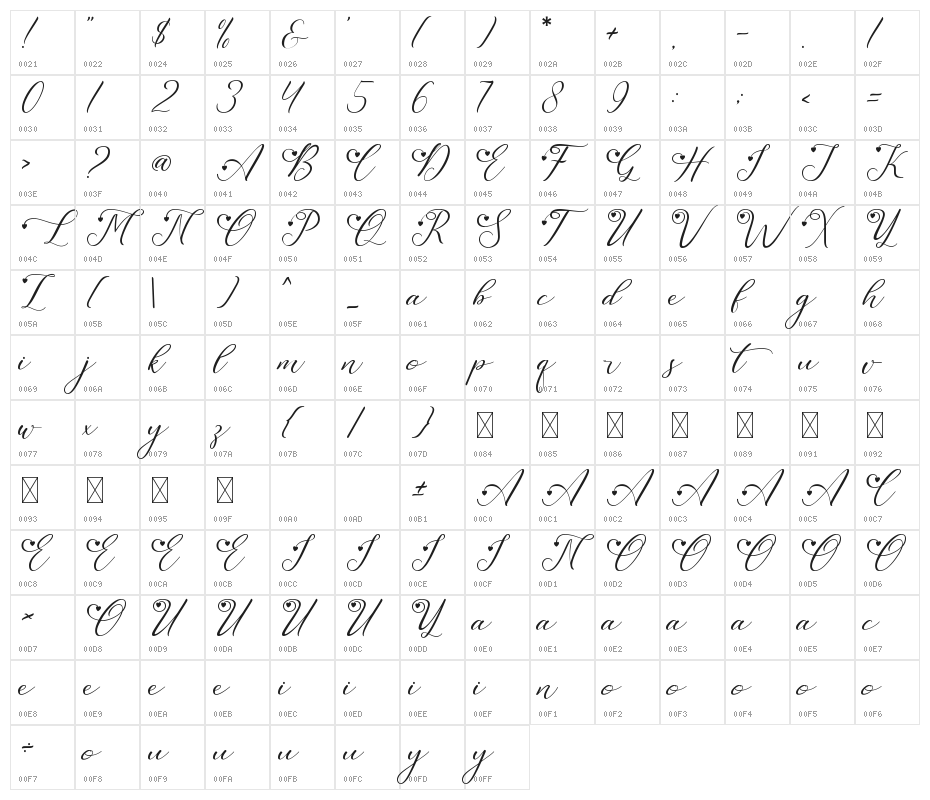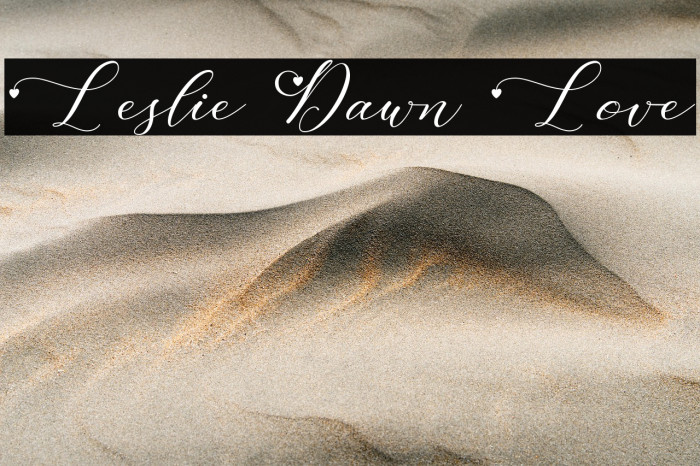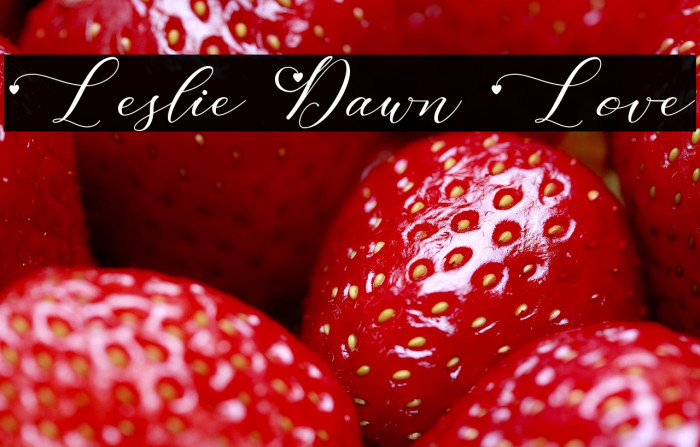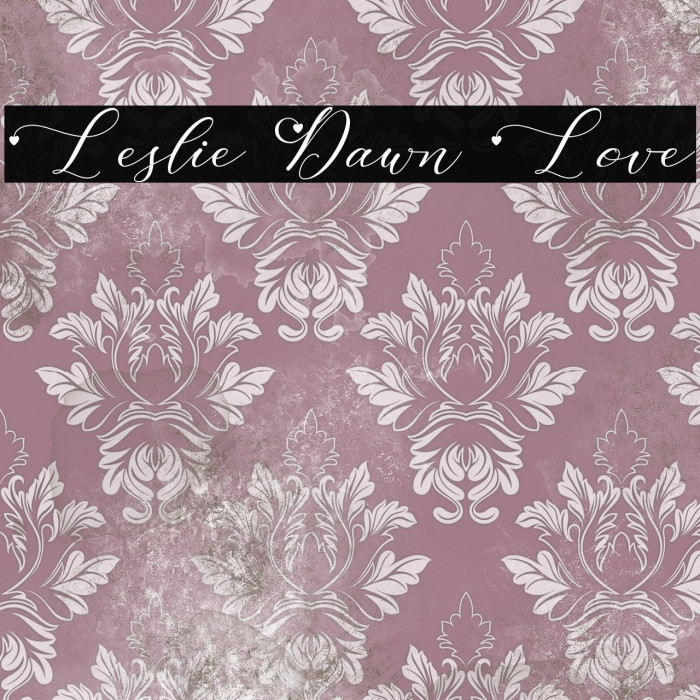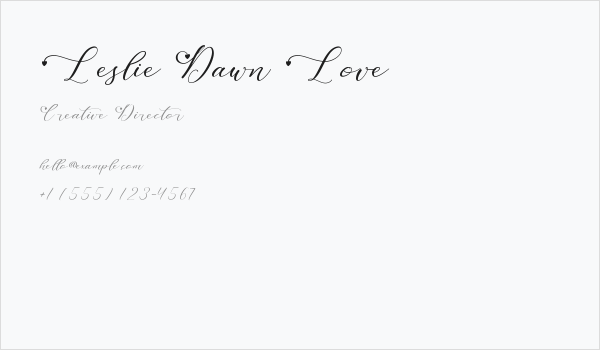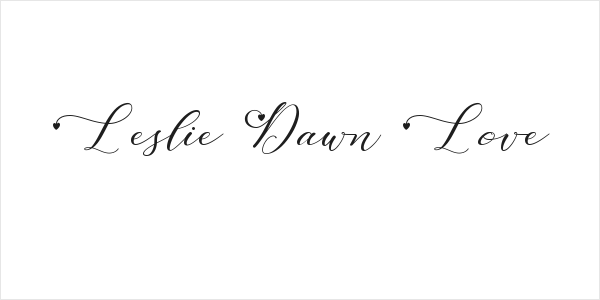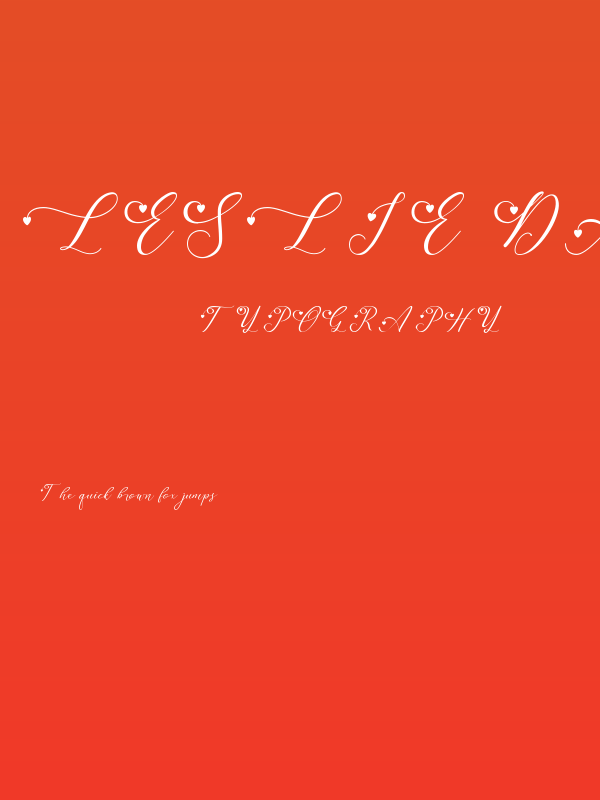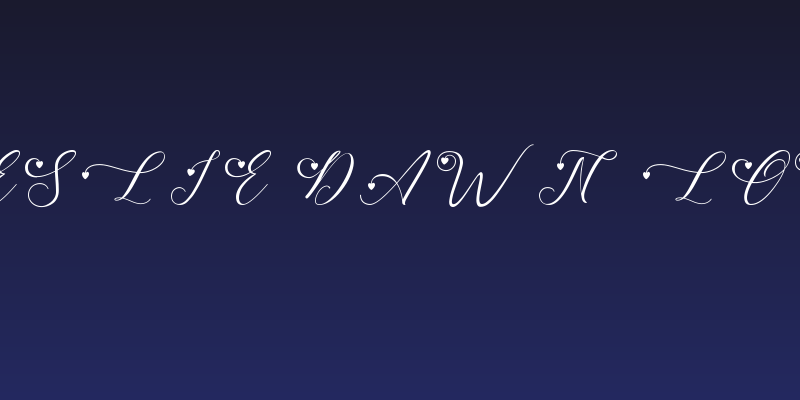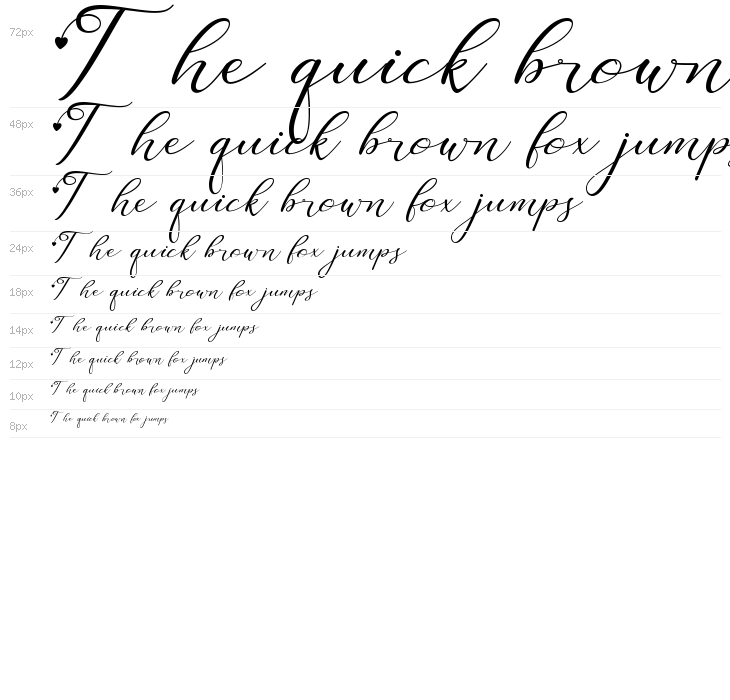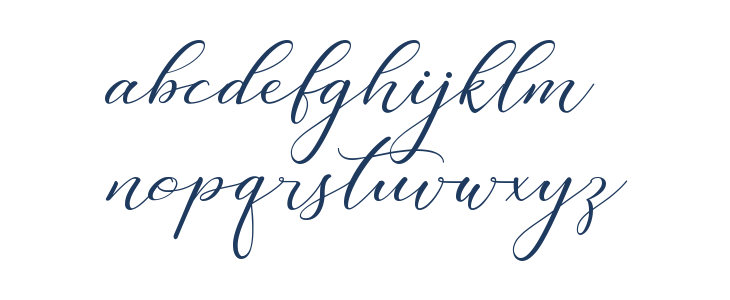
Leslie Dawn Love Font
Leslie Dawn Love Description
This elegant script font features a flowing, cursive style with delicate loops and swashes, giving it a sophisticated and graceful appearance. The uppercase letters are adorned with ornamental flourishes, adding a touch of luxury and refinement. The lowercase letters maintain a smooth and connected flow, enhancing readability while preserving the decorative essence. The numerals and special characters are designed with the same attention to detail, ensuring consistency throughout. This font exudes a sense of romance and elegance, making it ideal for formal occasions and artistic projects.
Overall StyleElegant, Romantic
Use CaseHeadlines, Invitations, Logos
Proposed ProjectsIdeal for wedding invitations, elegant branding, greeting cards, and luxury packaging.